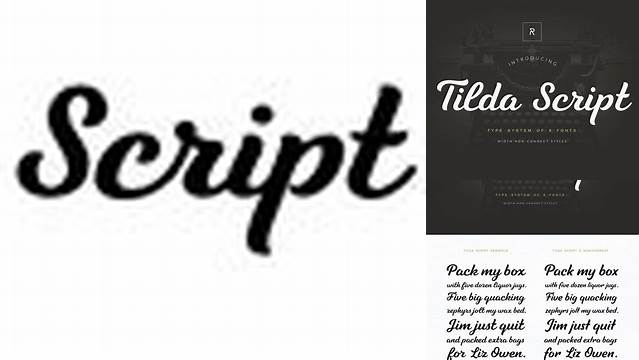
Are you looking for a unique and elegant font to add a touch of sophistication to your designs? Look no further than Tilda Script Bold, a stunning non-connect font that's perfect for a wide range of creative projects. In this article, we'll explore the features of Tilda Script Bold, discuss its various uses, and guide you on how to download it for free. So, guys, let's dive into the world of beautiful typography!
What is Tilda Script Bold?
Tilda Script Bold is a captivating font that falls under the category of script fonts. What sets it apart is its non-connecting style, meaning that the letters don't flow seamlessly into each other like traditional script fonts. This gives Tilda Script Bold a distinct and modern look, making it an excellent choice for projects where you want to convey elegance without sacrificing readability. The bold weight adds further emphasis and makes it stand out, ensuring your message is delivered with impact. This bold and stylish font is perfect for adding a touch of class to any project, making it a go-to choice for designers and creatives alike. Whether you're working on wedding invitations, branding materials, or social media graphics, Tilda Script Bold will elevate your designs and help you create a lasting impression. Its versatility and unique aesthetic make it a valuable addition to any font library, ensuring you have the perfect typeface for your next creative endeavor. Imagine using it on a website header to welcome visitors with a touch of elegance, or incorporating it into a logo to give your brand a sophisticated edge. The possibilities are endless, and the impact is undeniable.
This font is particularly well-suited for projects that require a balance of sophistication and clarity. Its non-connecting letters make it easier to read than many traditional script fonts, which can sometimes be challenging to decipher, especially in smaller sizes. This makes Tilda Script Bold an excellent choice for body text as well as headlines, providing versatility that many other script fonts lack. The boldness of the typeface adds a sense of confidence and strength, making it ideal for projects that need to convey a sense of authority or importance. Think about using it for business cards, presentations, or even legal documents where you want to make a statement while maintaining readability. Furthermore, Tilda Script Bold is a fantastic option for digital designs, as its clean lines and distinct characters render beautifully on screens of all sizes. This is crucial in today's digital age, where much of our communication and design work takes place online. You can confidently use this font for websites, social media graphics, e-books, and other digital projects, knowing that it will maintain its clarity and impact across various platforms and devices. So, if you're seeking a font that effortlessly combines style and practicality, Tilda Script Bold is definitely worth considering.
Overall, Tilda Script Bold stands out as a versatile and stylish typeface that offers a unique twist on traditional script fonts. Its non-connecting style, bold weight, and clear readability make it a valuable asset for a wide range of design projects. Whether you're aiming for elegance, sophistication, or a touch of modern flair, Tilda Script Bold has the potential to elevate your work and help you achieve your creative vision. So, let's explore some specific ways you can put this fantastic font to use!
Creative Uses for Tilda Script Bold
Tilda Script Bold is an incredibly versatile font that can be used in a variety of creative projects. Its elegant and modern style makes it perfect for adding a touch of sophistication to any design. Let's explore some specific ways you can use Tilda Script Bold to enhance your work. One of the most popular applications is in branding and logo design. A well-chosen font can be crucial in conveying the right message about your brand, and Tilda Script Bold offers a blend of elegance and confidence that can be perfect for businesses looking to project a sophisticated image. Imagine using it for the logo of a high-end boutique, a luxury spa, or a creative agency. The bold weight ensures that your brand name stands out, while the script style adds a touch of personality and charm. Beyond logos, Tilda Script Bold can also be used for other branding materials such as business cards, letterheads, and website headers, creating a cohesive and visually appealing brand identity. By incorporating this font consistently across your branding elements, you can establish a strong and memorable brand presence.
Another fantastic use for Tilda Script Bold is in wedding invitations and stationery. The elegant script style is naturally suited to the formality and romance of weddings, making it a popular choice for couples looking to create a sophisticated and timeless aesthetic. Using Tilda Script Bold for the names of the bride and groom, the date and time of the ceremony, and other important details can add a touch of class to your invitations. You can also extend the use of this font to other wedding-related materials, such as save-the-dates, thank-you cards, and even the wedding program. By maintaining a consistent font choice throughout your wedding stationery, you can create a polished and unified look that reflects the elegance of your special day. Furthermore, Tilda Script Bold pairs beautifully with other fonts, allowing you to create interesting and visually appealing layouts. Consider combining it with a classic serif font for the body text to balance the script's flair with readability.
Social media graphics are another area where Tilda Script Bold can shine. In the fast-paced world of social media, it's crucial to create visuals that grab attention and convey your message effectively. Tilda Script Bold can help you achieve this by adding a touch of elegance and personality to your posts. Use it for headlines, quotes, or call-to-actions to make your text stand out from the crowd. The bold weight ensures that your message is easily seen, even on small screens, while the script style adds a touch of sophistication that can help you build a strong brand identity on social media. You can also use Tilda Script Bold to create eye-catching graphics for your website or blog. Whether you're designing banners, headers, or featured images, this font can help you create a visually appealing and professional look. Its versatility makes it suitable for a wide range of topics and industries, from fashion and beauty to food and travel. By incorporating Tilda Script Bold into your website's design, you can create a cohesive and stylish online presence that reflects your brand's personality and values.
In conclusion, Tilda Script Bold offers a wealth of creative possibilities. From branding and logo design to wedding invitations and social media graphics, this versatile font can elevate your projects and help you achieve your design goals. Its unique blend of elegance, confidence, and readability makes it a valuable asset for any designer or creative professional. So, now that we've explored its uses, let's find out how you can download this fantastic font for free!